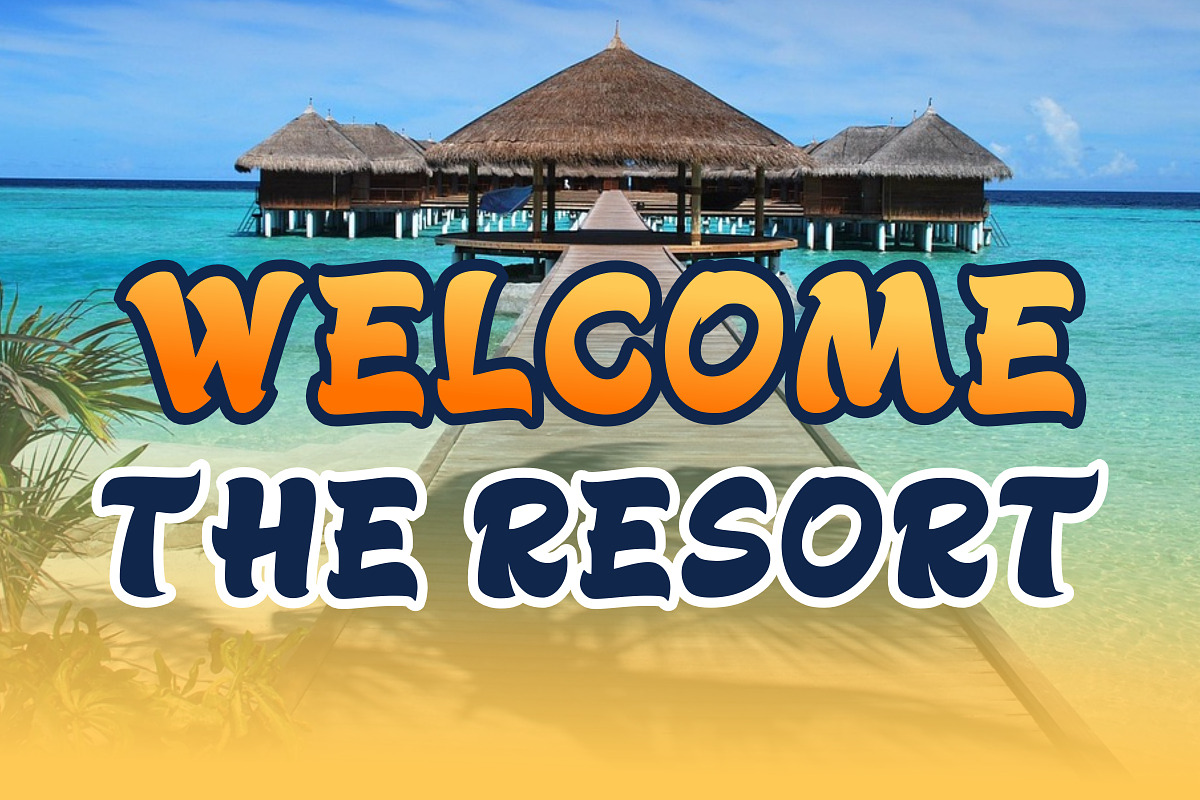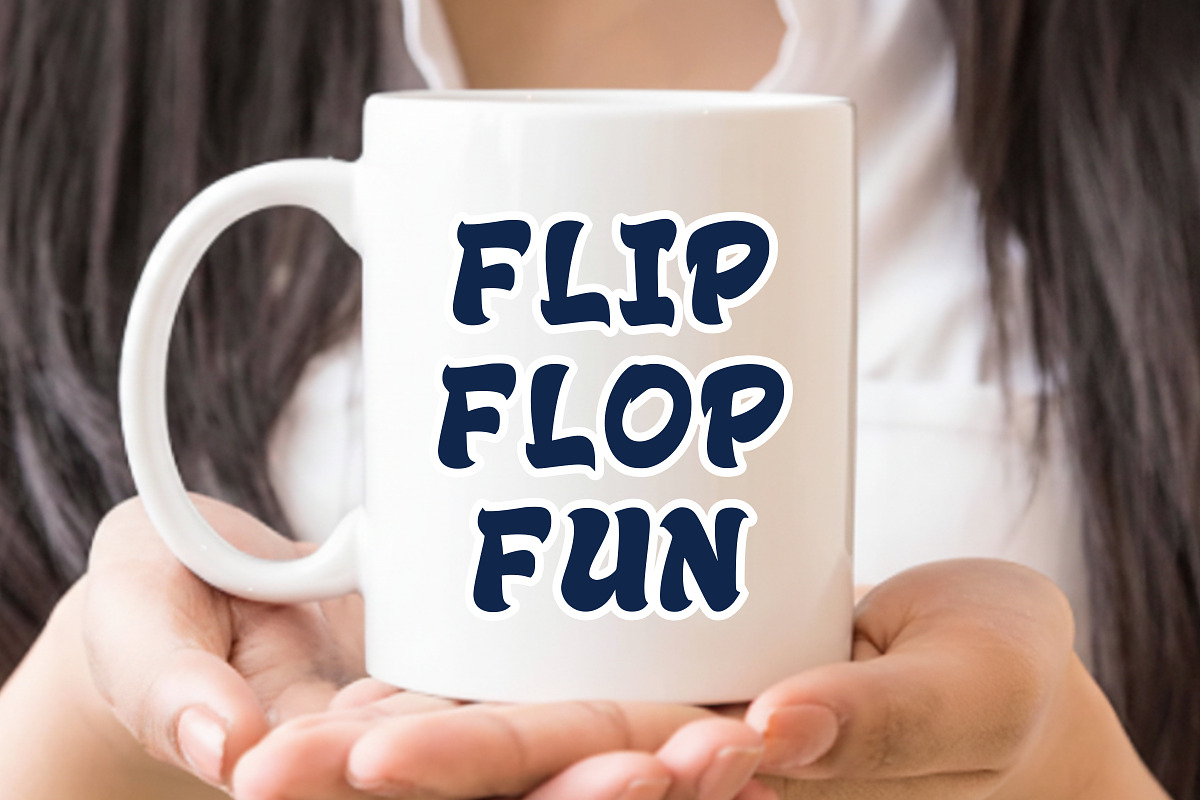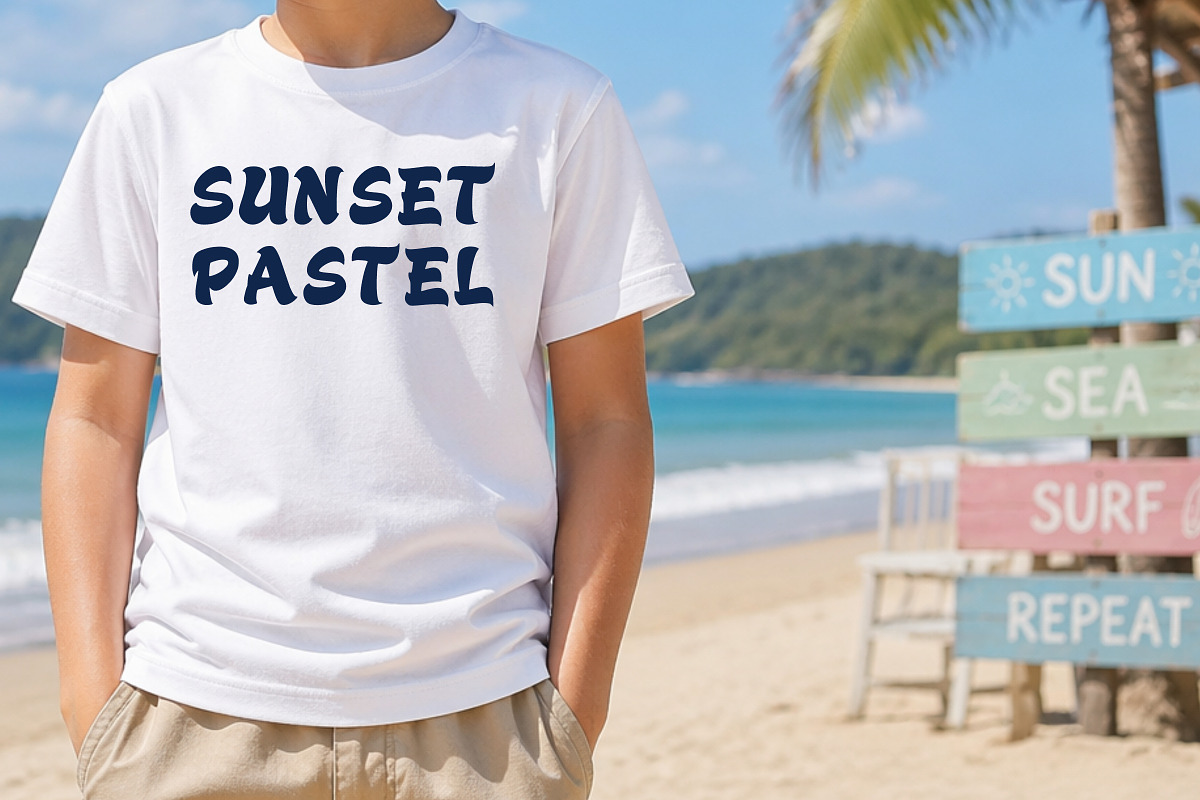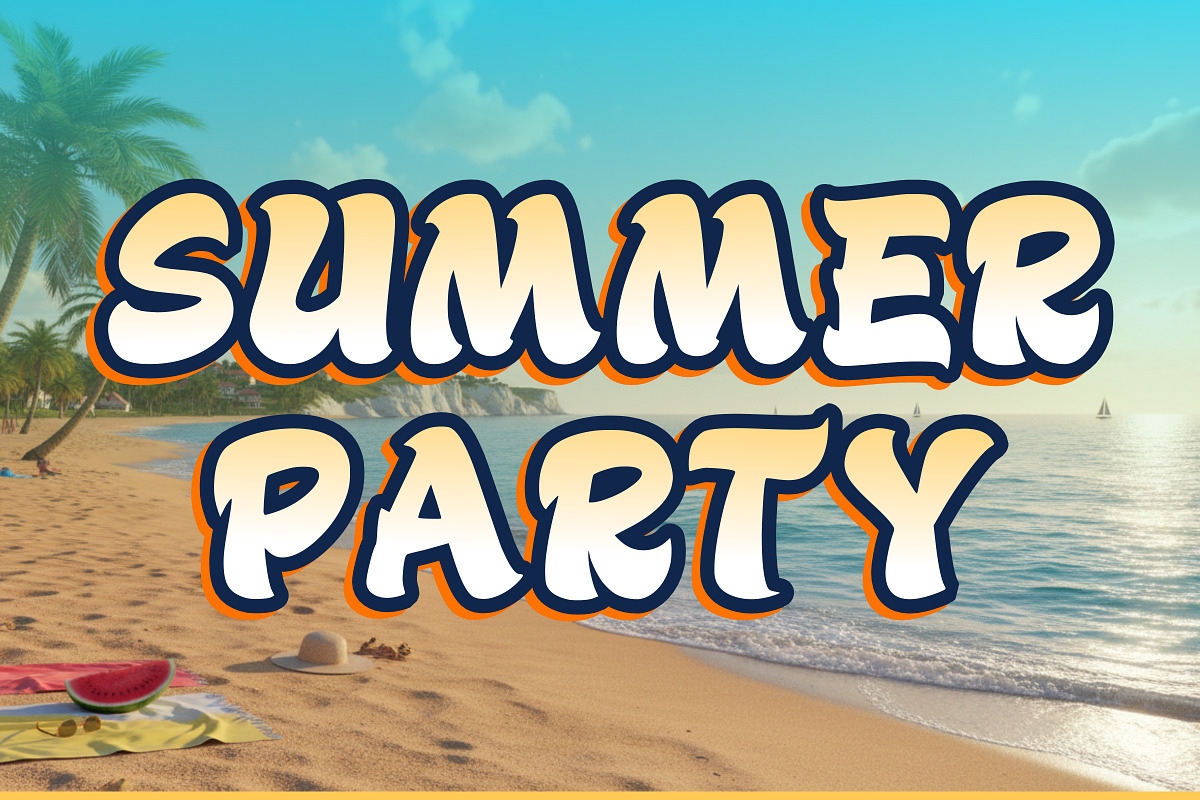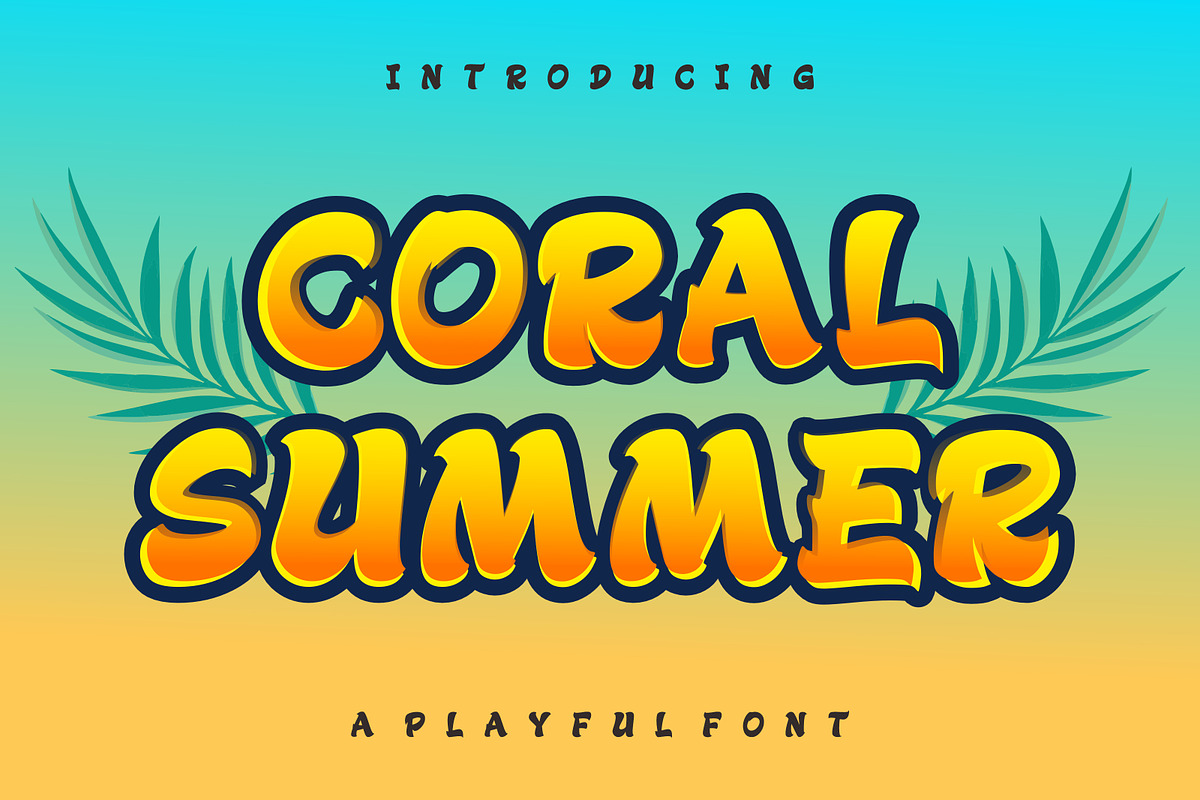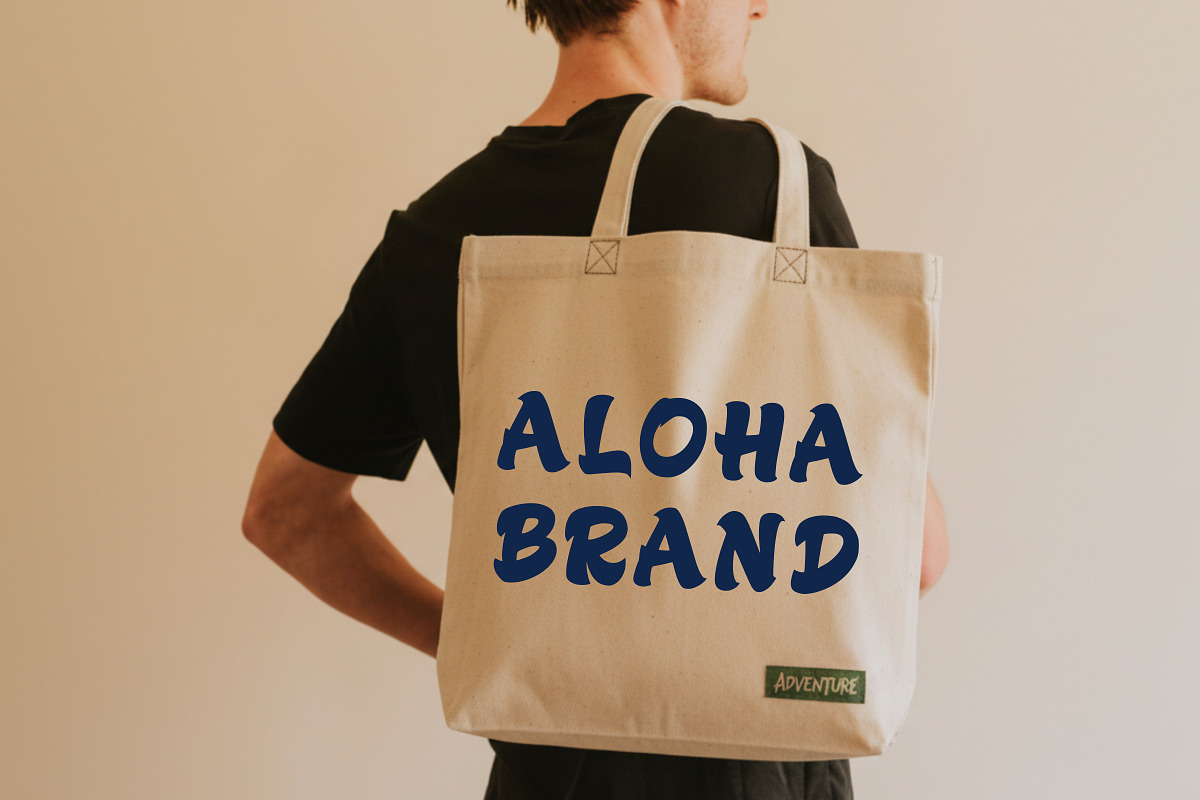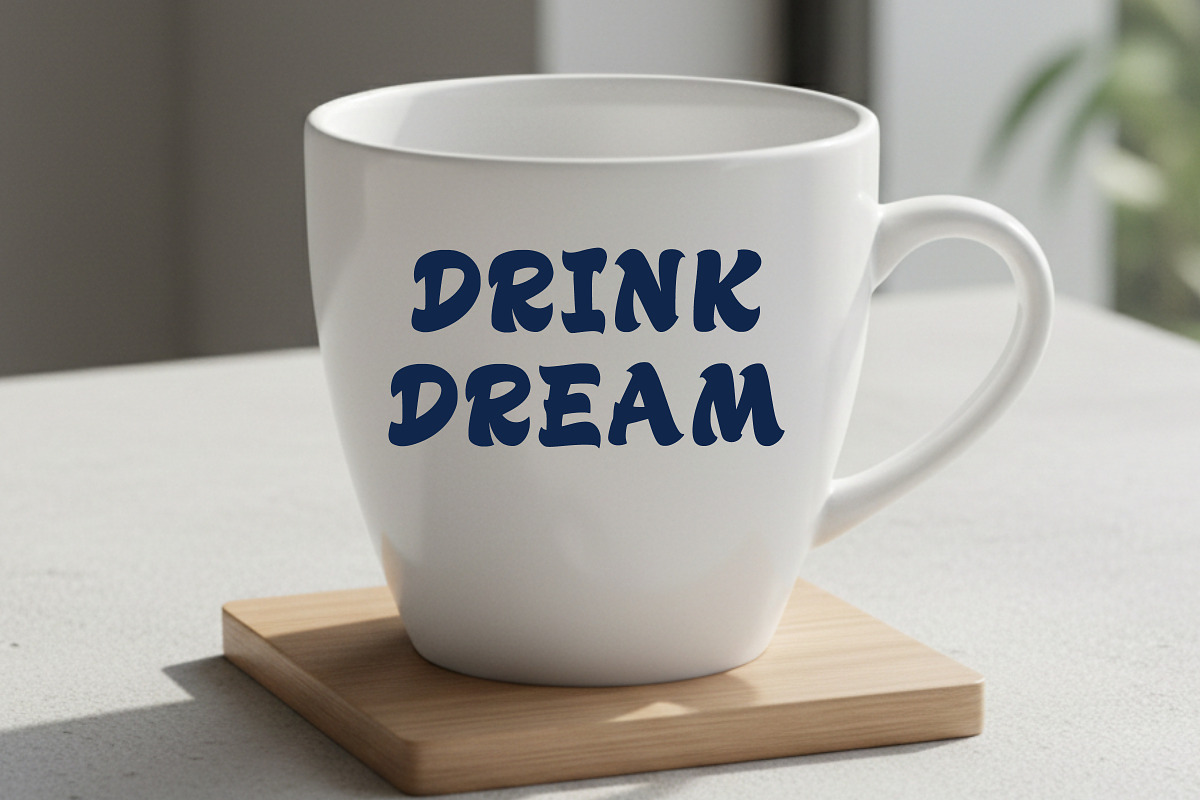
Coral Summer
Coral Summer is a bold and cheerful display font inspired by sunny beach vibes and tropical aesthetics. With its thick rounded shapes, fun character style, and vibrant personality, this font is perfect for summer-themed designs, kids’ projects, posters, branding, and eye-catching headlines.
Its playful curves and friendly appearance make it ideal for creating designs that feel warm, energetic, and full of life.
Bold & playful style Tropical and summer vibe Easy-to-read display font Perfect for kids and fun designs Great for headlines and branding